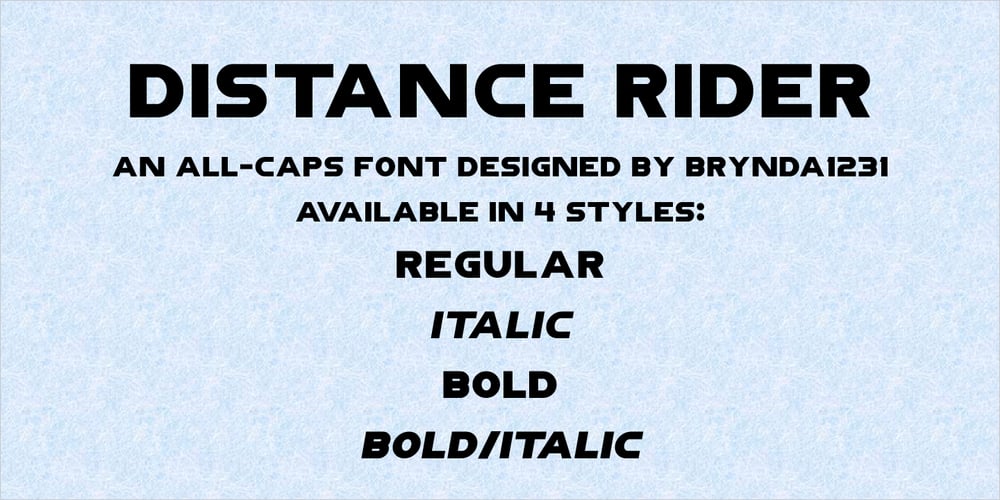
Distance Rider Font Family was designed by Bryndan Meyerholt and published by B1 Industries. Distance Rider contains 4 styles and family package options. This font is useful for all sorts of things (Sites, Gaming, Signage, Electronics, Logos, etc.) I wanted to create a Type Face like this, so I did, making sure to check for errors…